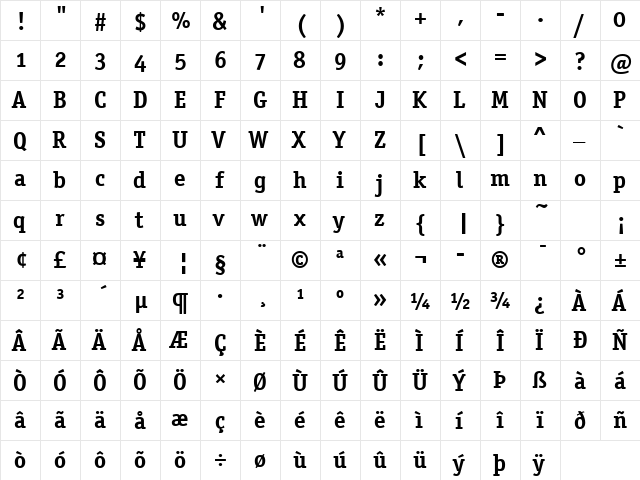
Officina Serif OS ITC TT Bold
Design Context for Officina Serif OS ITC TT Typeface
Officina Serif OS ITC TT carries the refined structure of traditional serif typography, with bracketed terminals and considered proportions that communicate credibility and craft. The heavy weight commands attention and anchors typographic hierarchies.
Pro Tip: Set Officina Serif OS ITC TT with slightly loose tracking in headlines to let each letterform's detail read clearly at display sizes.